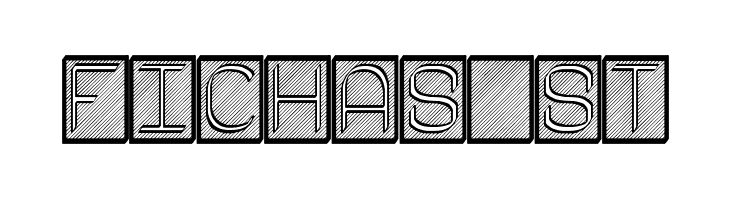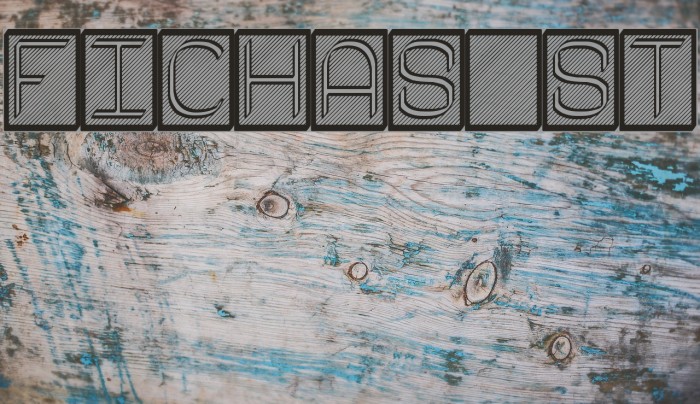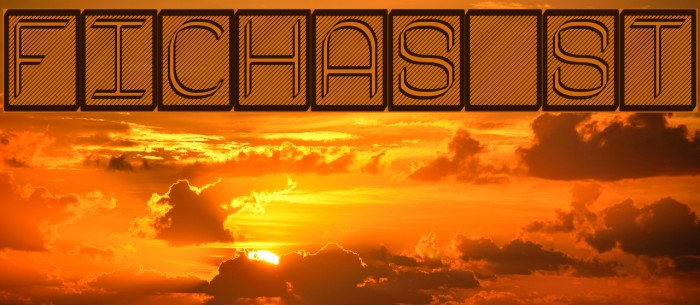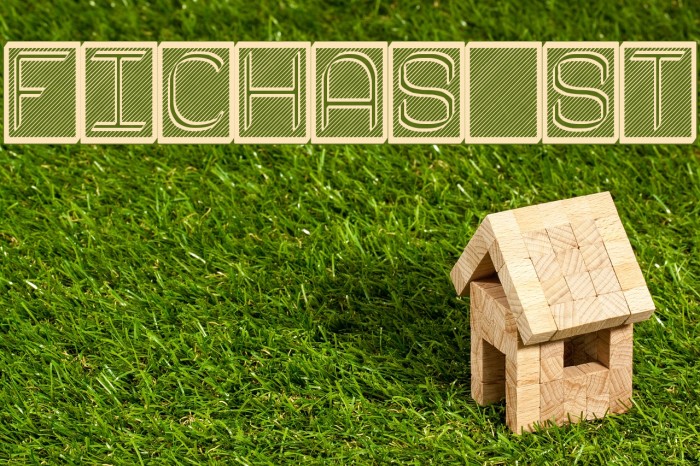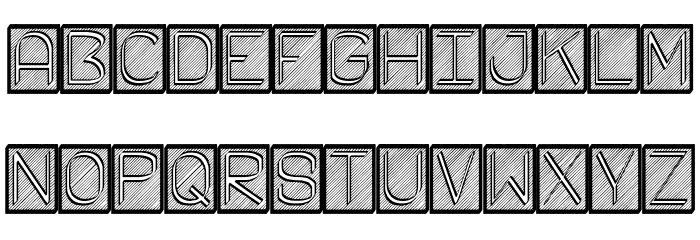
Fichas St Font
Fichas St Description
This font features a unique, decorative style with each letter encased in a square border. The letters themselves are outlined with a bold stroke and filled with diagonal hatching, giving a textured appearance. The design is reminiscent of vintage signage or letterpress blocks, offering a distinct, handcrafted feel. The uppercase letters are uniform in size, maintaining a consistent alignment within their square frames. The overall aesthetic is both playful and structured, making it suitable for creative and artistic projects. Its bold outlines and intricate details make it stand out, ensuring legibility while adding a touch of sophistication.
| Overall Style | Vintage |
| Proposed Projects | Ideal for vintage-themed posters, artistic book covers, creative branding, and unique logo designs. |